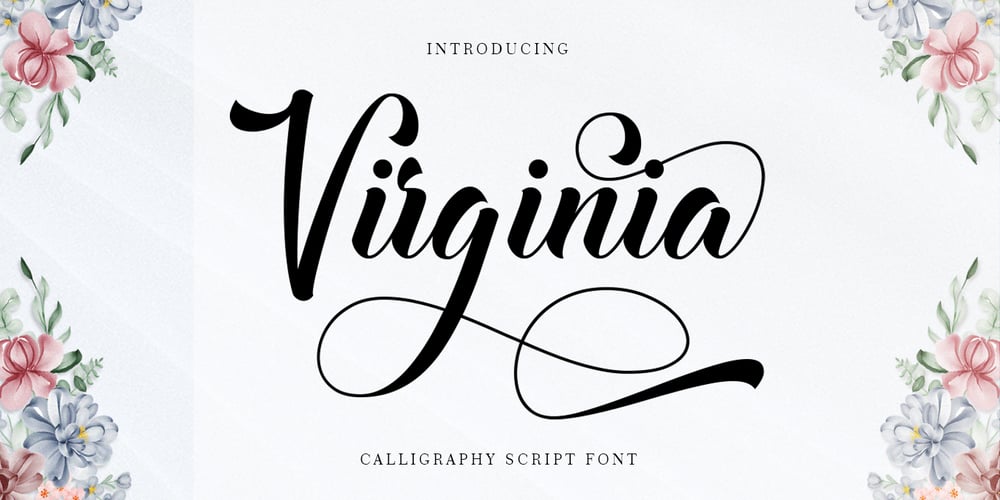
Virginia
Virginia font
Virginia Font Family was designed by khaidir and published by Gatype. Virginia contains 1 styles and family package options. Virginia is a calligraphic script font with multiple baselines, designed to convey elegance and style. It is subtle, clean and feminine. Works perfectly for logos, magazines, menus, books, invitations, wedding/greeting cards, packaging, labels, t-shirts etc. All your designs will have a beautiful homemade touch with Virginia.To enable the OpenType Stylistic alternative, you need a program that supports OpenType features such as Adobe Illustrator CS, Adobe Indesign & CorelDraw X6-X7, Microsoft Word 2010 or a later version. and there are additional ways to access alternatives, using the Character Map (Windows), Nexus Font (Windows), Font Book (Mac) or a software program such as PopChar (for Windows and Mac).If you need any help or suggestions please contact me via email “chaidirgata@gmail.com”Thank you for your purchase.